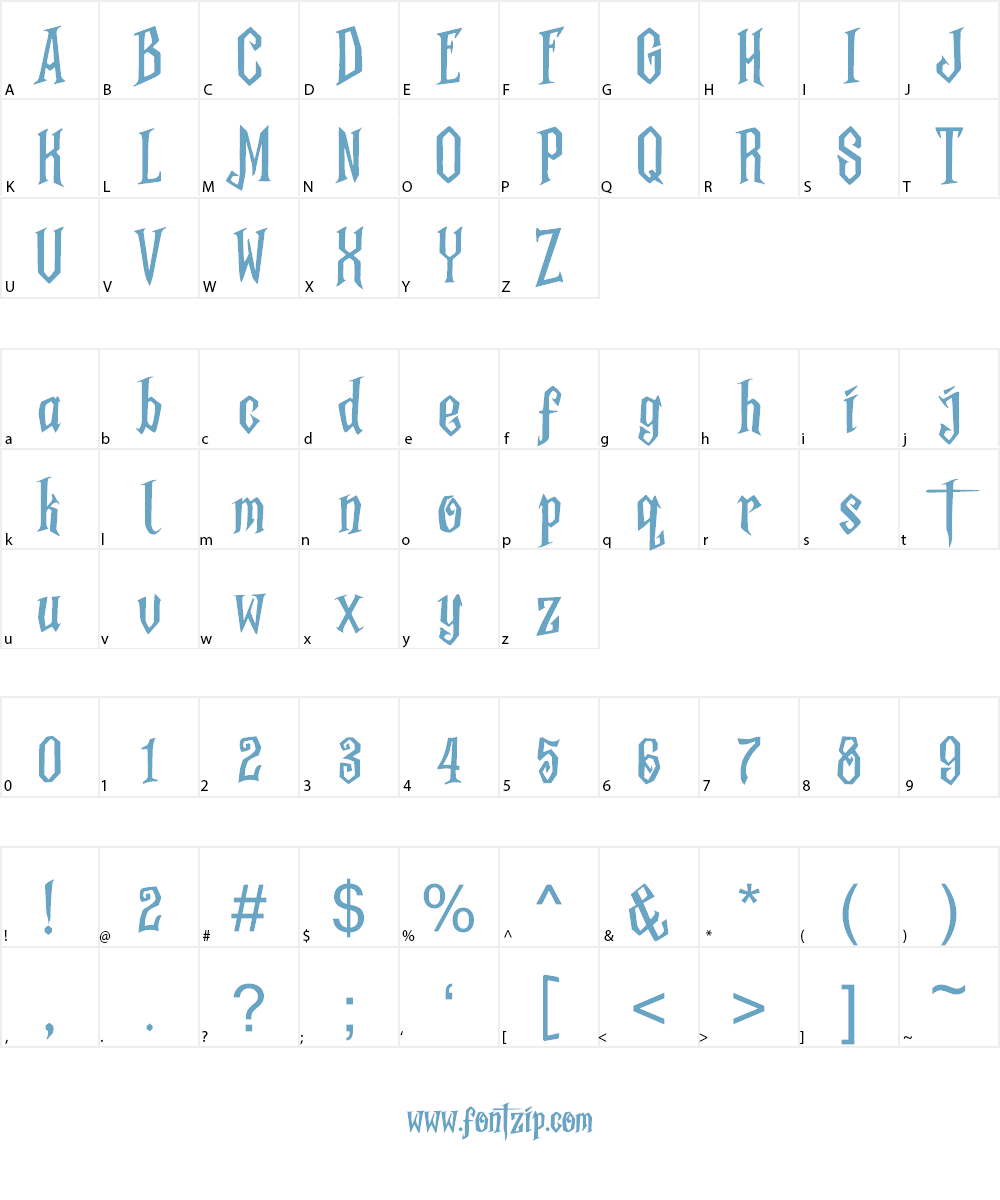
Midnight Minutes is a display font with a Fantasy, Creepy & Mystical feel with lots of curly and sharp
elements inspired by horror fantasy movies and book!
Midnight Minutes offers you a scary wicked and mysterious atmosphere to your design projects.
Suitable for book/novel or movie title, logos & branding, social media posts, advertisements & product designs, etc.